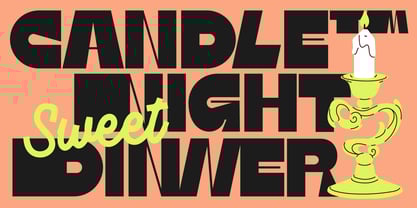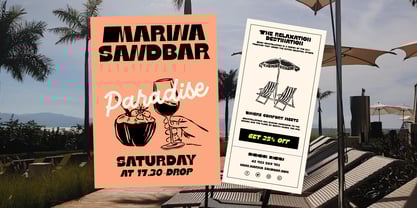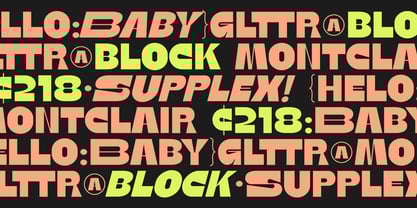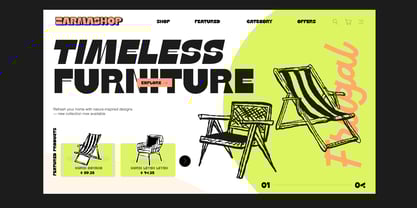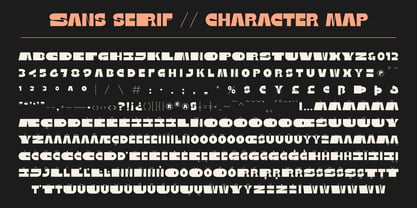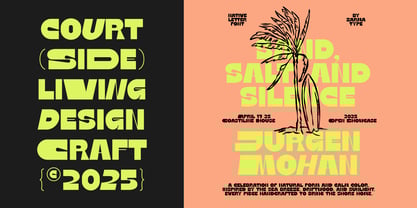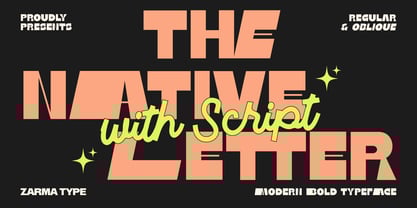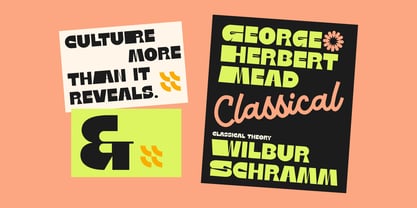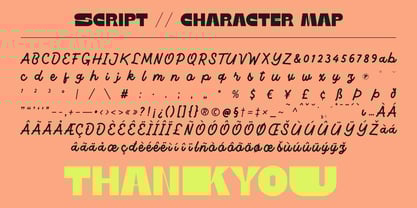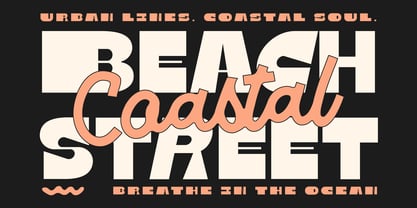
Native Letter
by Azzam Ridhamalik
The Native Letter Font Family was designed by Azzam Ridhamalik and published by Azzam Ridhamalik. Native Letter contains 3 styles and family package options. More about this family
Native Letter is a modern bold font built to deliver punchy headlines and sun-soaked vibes in one confident voice. Its blocky sans shapes land with strong visual weight, while the flowing script companion adds friendly motion that feels handcrafted. Together they create striking contrast for hospitality posters, travel flyers, or lifestyle branding where clarity matters but personality leads the way. With crisp forms that hold up on signs, billboards, and social graphics, this type system helps your message read fast and feel warm. Designed for designers who mix structure with spontaneity, Native Letter turns simple words into memorable statements. Use the sans for sturdy titles, then weave in the script for emphasis, accents, and expressive tags. Regular and oblique options expand layout choices, and multilingual support keeps global projects seamless. Whether you’re launching a pop-up, promoting beach events, or building a fresh merch line, this modern bold font brings energy, readability, and unmistakable style. Perfect for: Travel posters, hospitality branding, event flyers, hotel collateral, restaurant menus, lifestyle campaigns, merch graphics, billboards, digital ads, social headers. Features: 2 Styles Sans Serif: Regular & Oblique All Caps for the Sans Serif Uppercase & Lowercase for the Script Numbers and Punctuation Stylistic Alternate Multilingual Support PUA Encoded Characters Give your message a bold voice with character. Add Native Letter to your toolkit today and craft eye-catching titles, playful accents, and brand visuals that people remember.